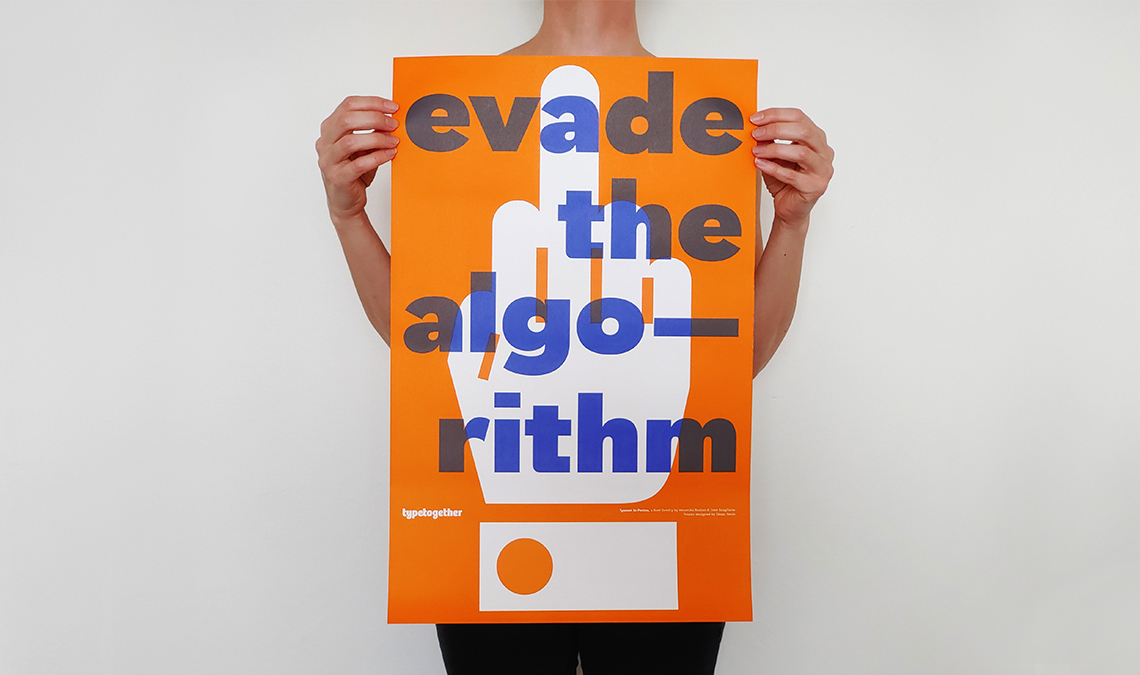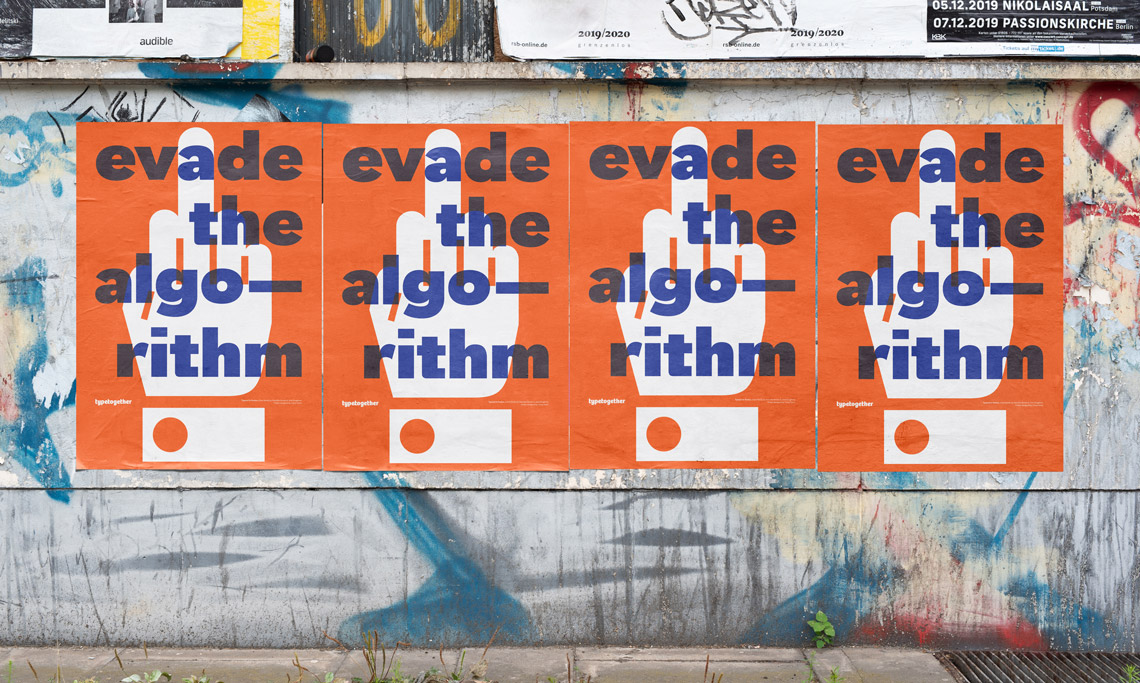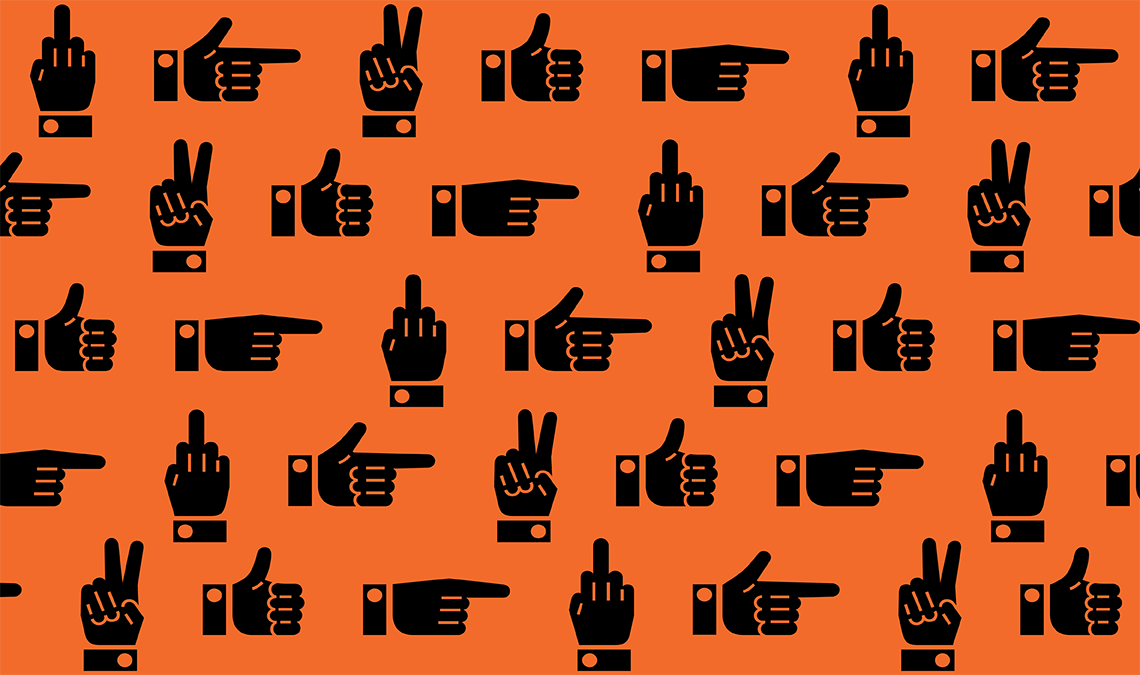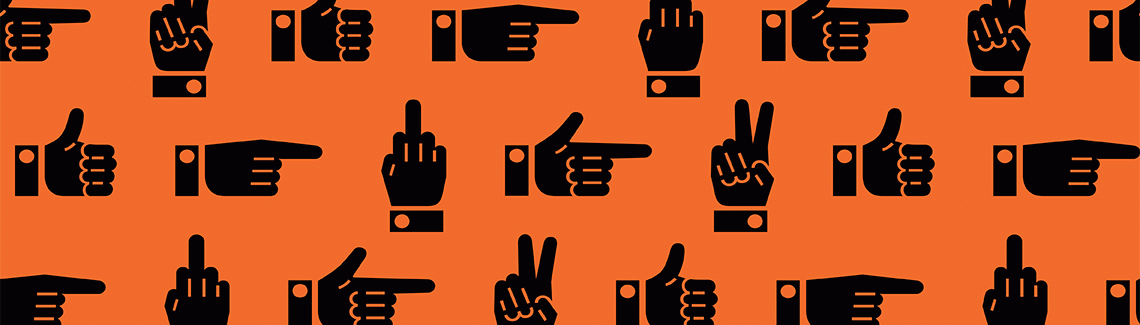
Get a free poster when you buy any Postea fonts, whether a single weight or the entire family. For the next four weeks we are giving away our latest poster, ‘Evade the algorithm’, featuring our take on geometric sans, Postea.
The Postea font family is Veronika Burian and José Scaglione’s take on German geometric typefaces, reshaped with the right attributes for setting paragraphs and headings, and perfect for branding and text use.
In addition to the 14 styles (seven upright and italic) and two variable fonts, Postea includes a set of 63 icons (plus eight arrows and six manicules) in three weights to ensure compatibility across the family.